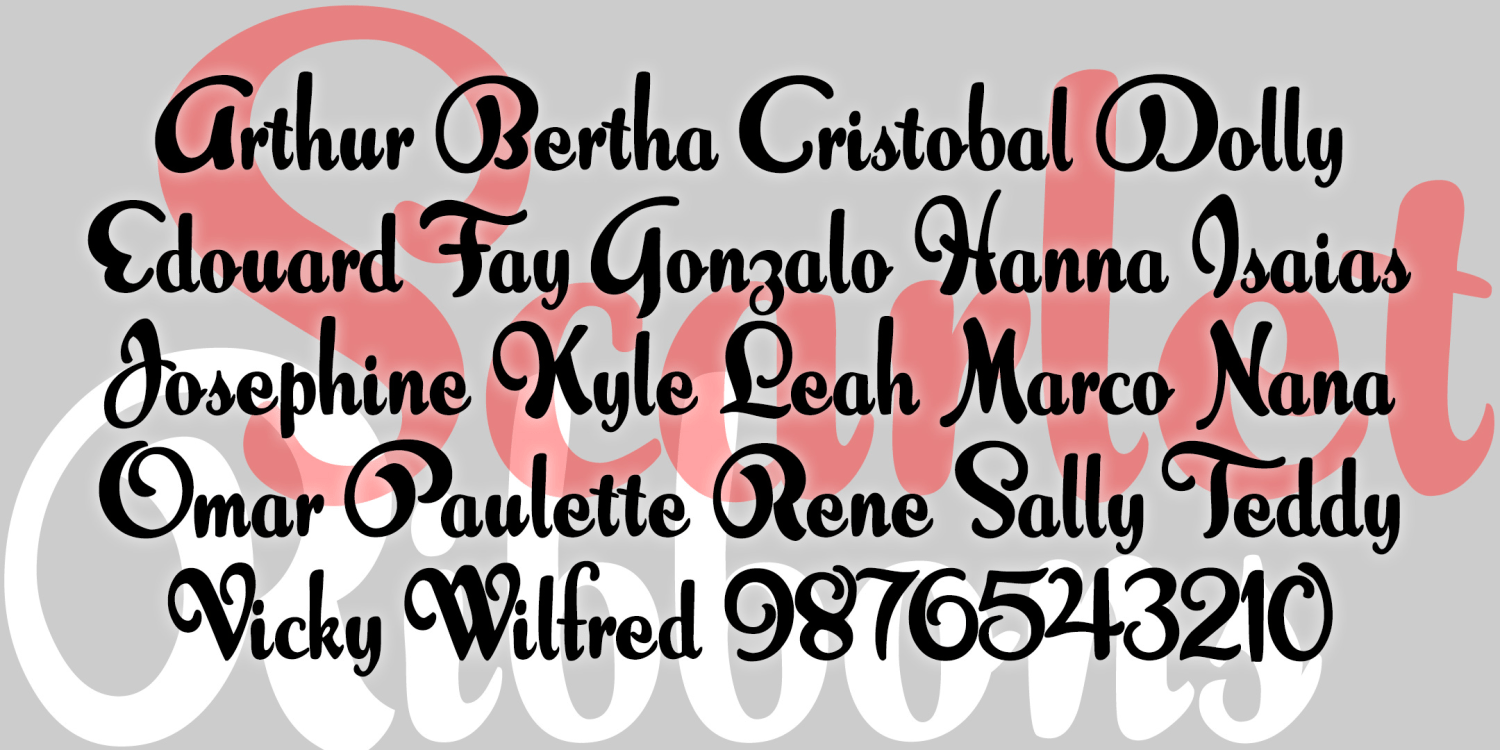
Scarlet Ribbons
SCARLET RIBBONS is a script font with huge graceful caps and an elegant, friendly feel. It was inspired by a Speedball lettering book from the 1930s by Ross F. George. The name comes from a sweet old song.